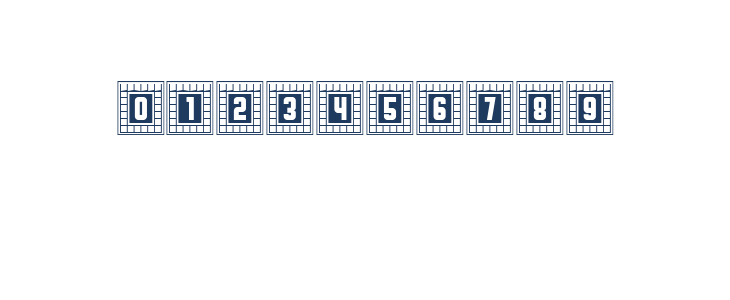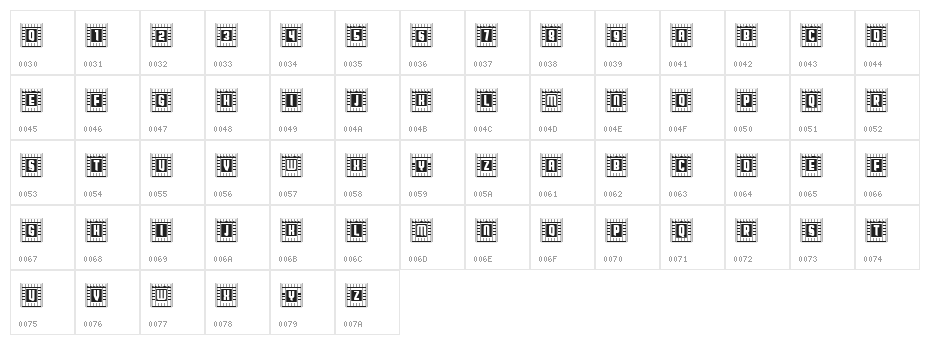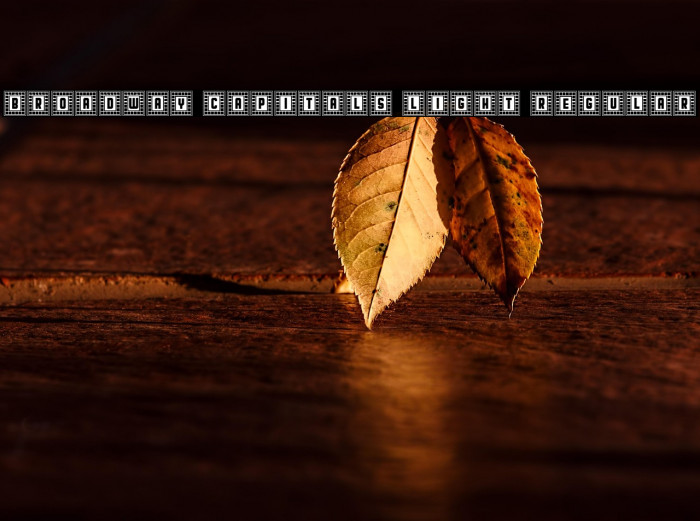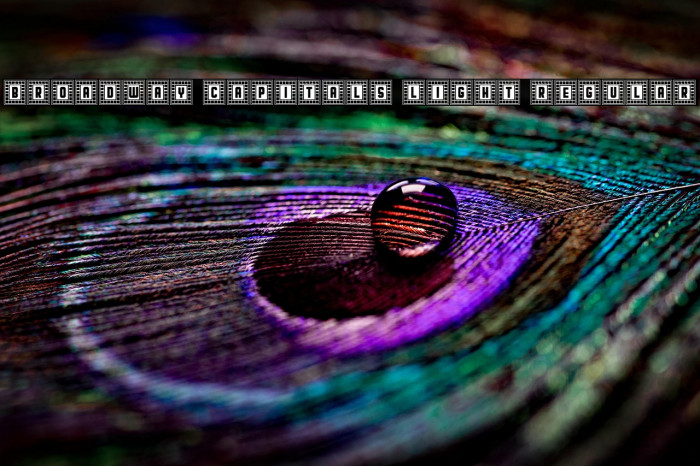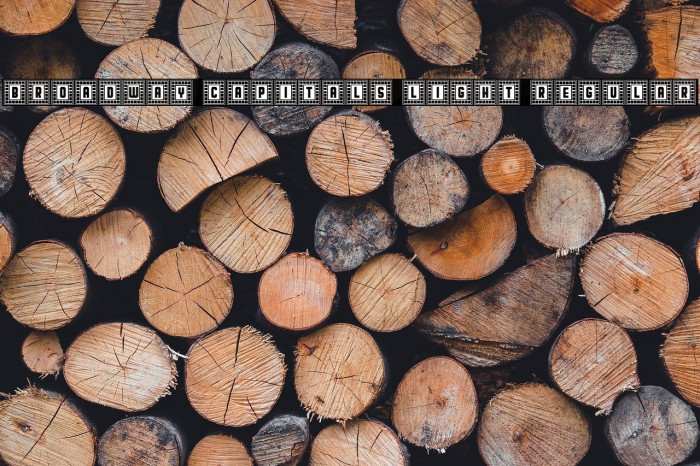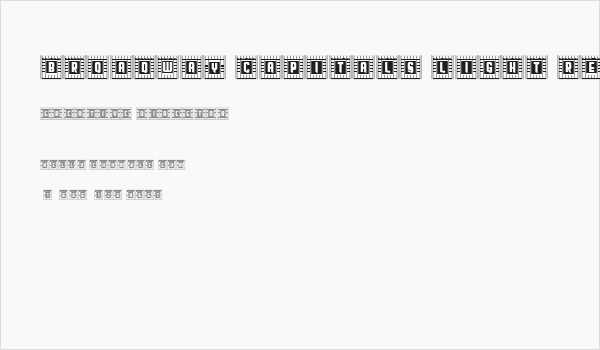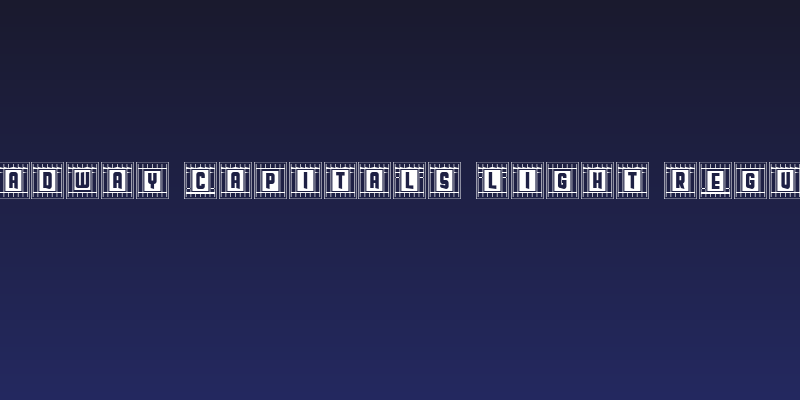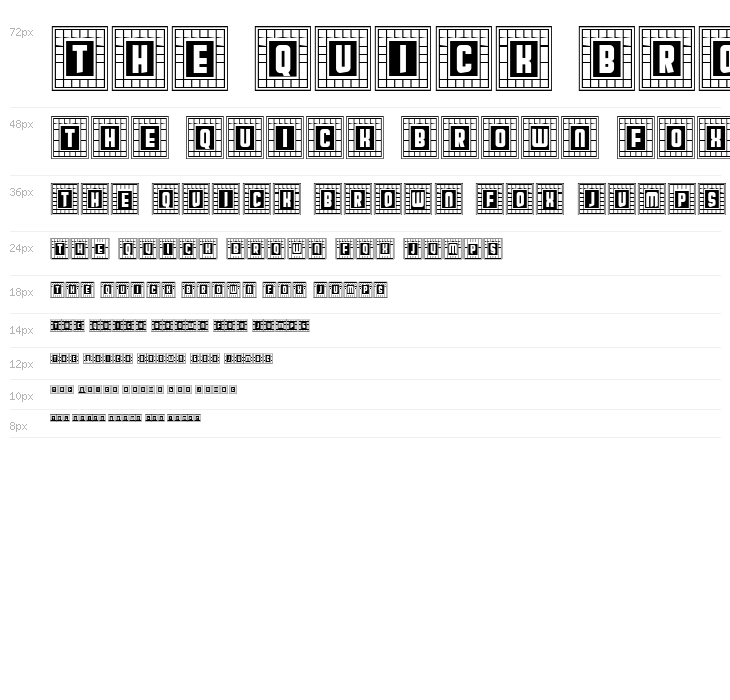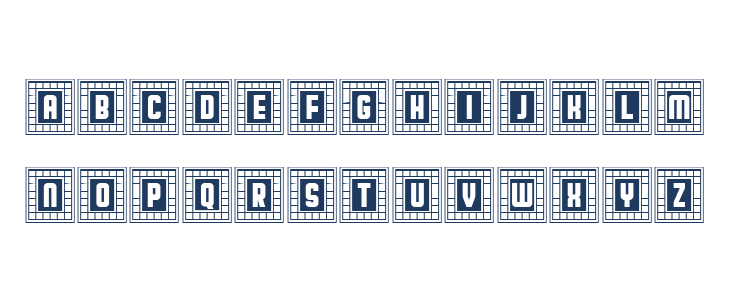
Broadway Capitals Light Regular Font
Broadway Capitals Light Regular Description
This font features a bold, theatrical style reminiscent of classic marquee lights. Each character is enclosed in a square with a grid pattern, giving it a unique, decorative appearance. The letters are uppercase and have a strong, geometric form, making them stand out prominently. The numbers and special characters follow the same design, ensuring consistency across all elements. This font is perfect for creating a vintage or retro feel, ideal for projects that require a touch of nostalgia or a bold statement.
| Proposed Projects | Ideal for theater posters, vintage-themed events, signage, and any project needing a bold, retro aesthetic. |